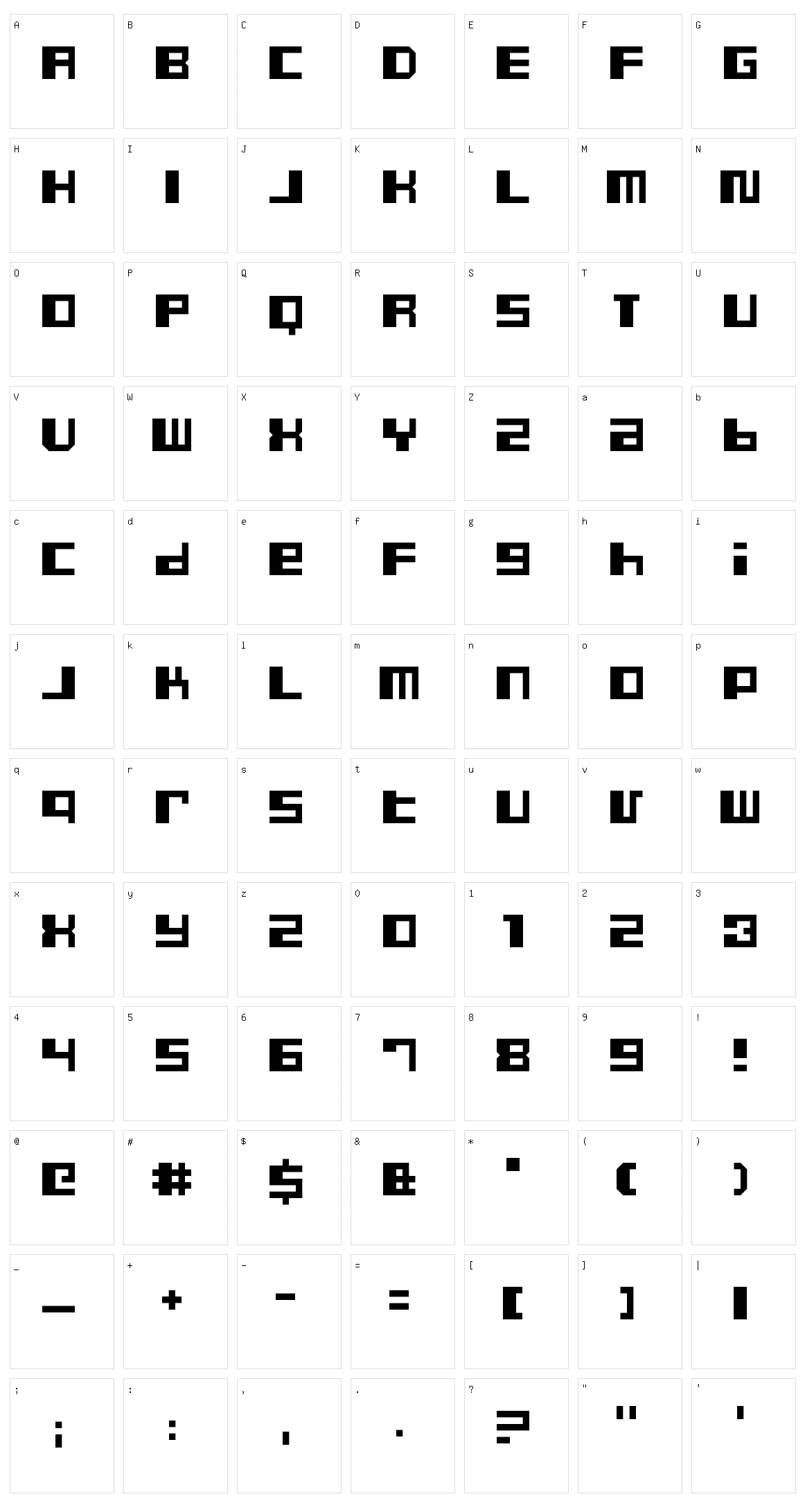
The free font Dusty Pro is carefully designed by Aleksandr Savenkov, showcasing a thoughtful balance of creativity and usability and falls under the Square font style. When you download the ZIP file, it contains only 4.69 KB of font files, making it lightweight and quick to download. Please review the license details below to understand permitted usage and distribution rights. If license information is not available, we recommend using this font for personal projects only or contacting the author directly for commercial usage permissions.